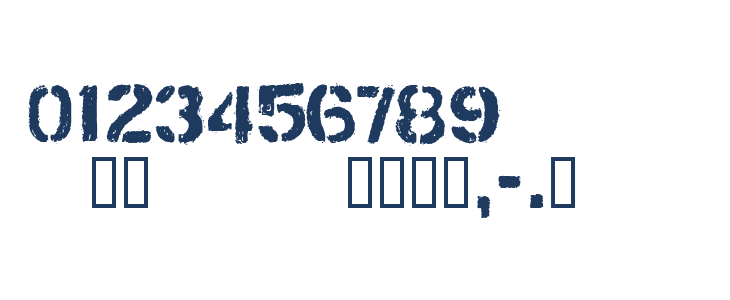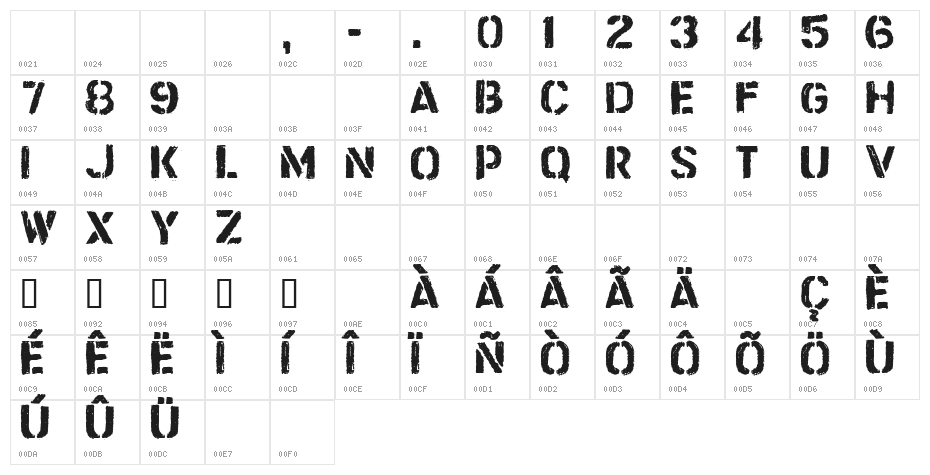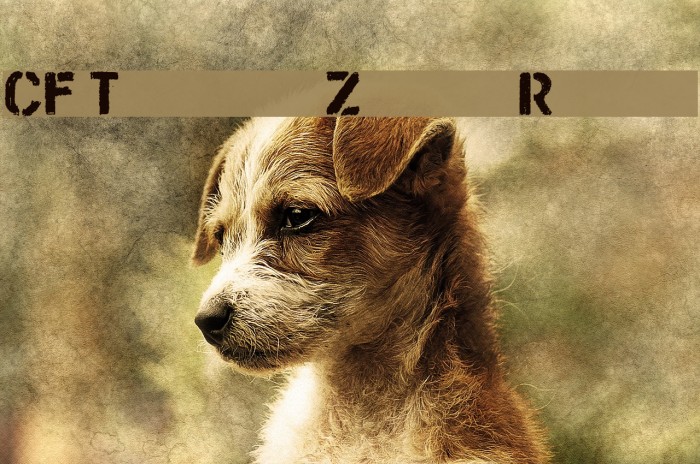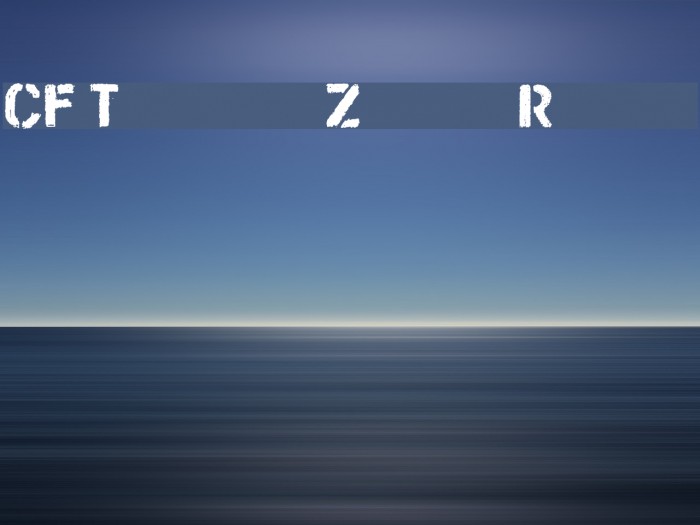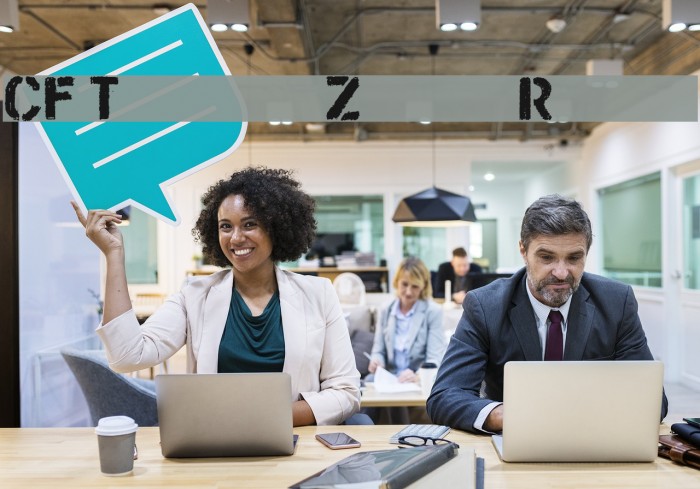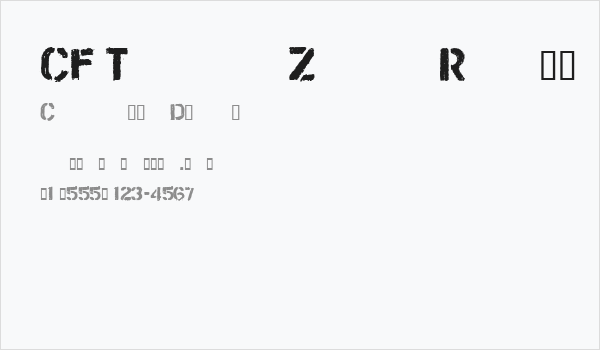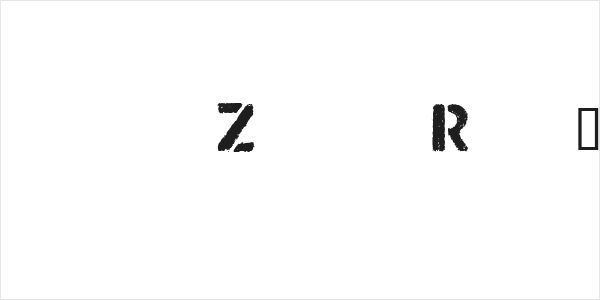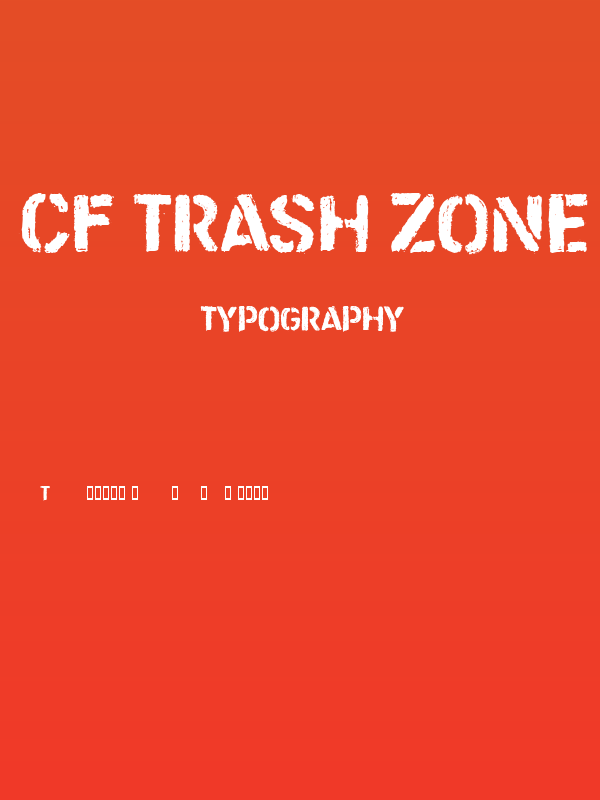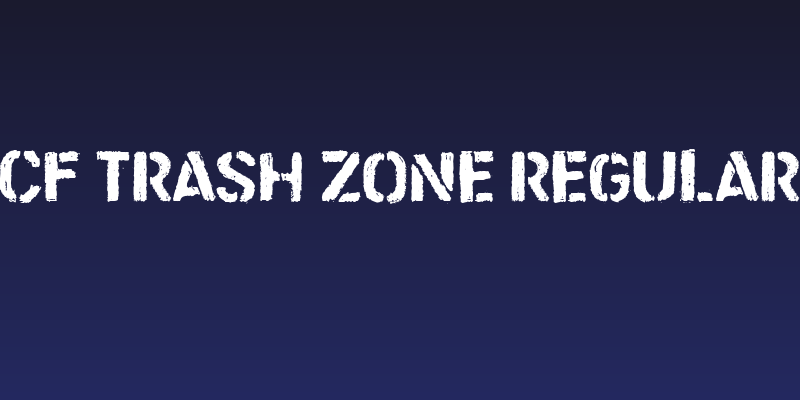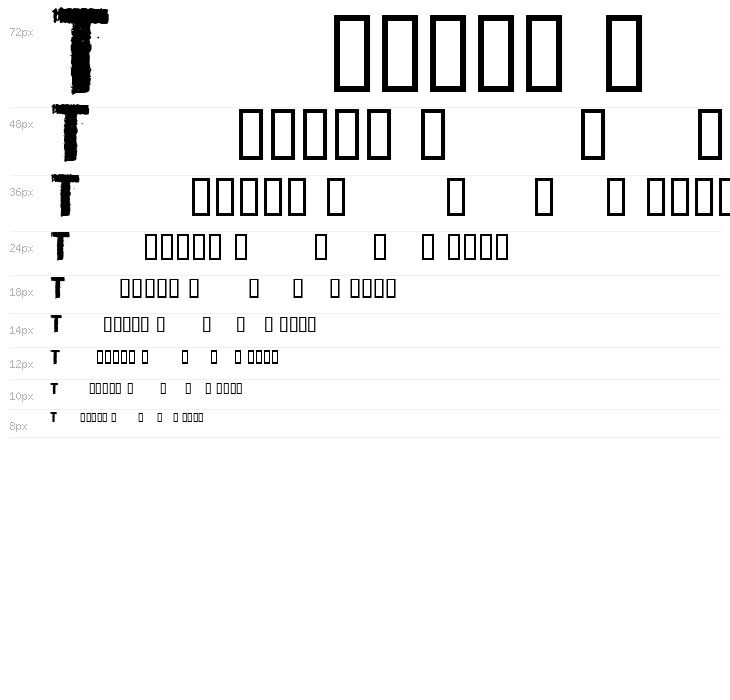
CF Trash Zone Regular Font
CF Trash Zone Regular Description
This font features a rugged, distressed style that mimics the appearance of worn or eroded text. The characters are bold with a rough texture, giving them a grunge or urban feel. The uppercase letters are prominent, with each character showing unique imperfections that add to the overall aesthetic. The numbers and special characters follow the same design, maintaining consistency across the font. This style is ideal for projects that require a bold statement or an edgy, industrial look.
| Overall Style | Grunge, Urban, Industrial |
| Proposed Projects | Ideal for posters, album covers, streetwear branding, and urban-themed designs. |